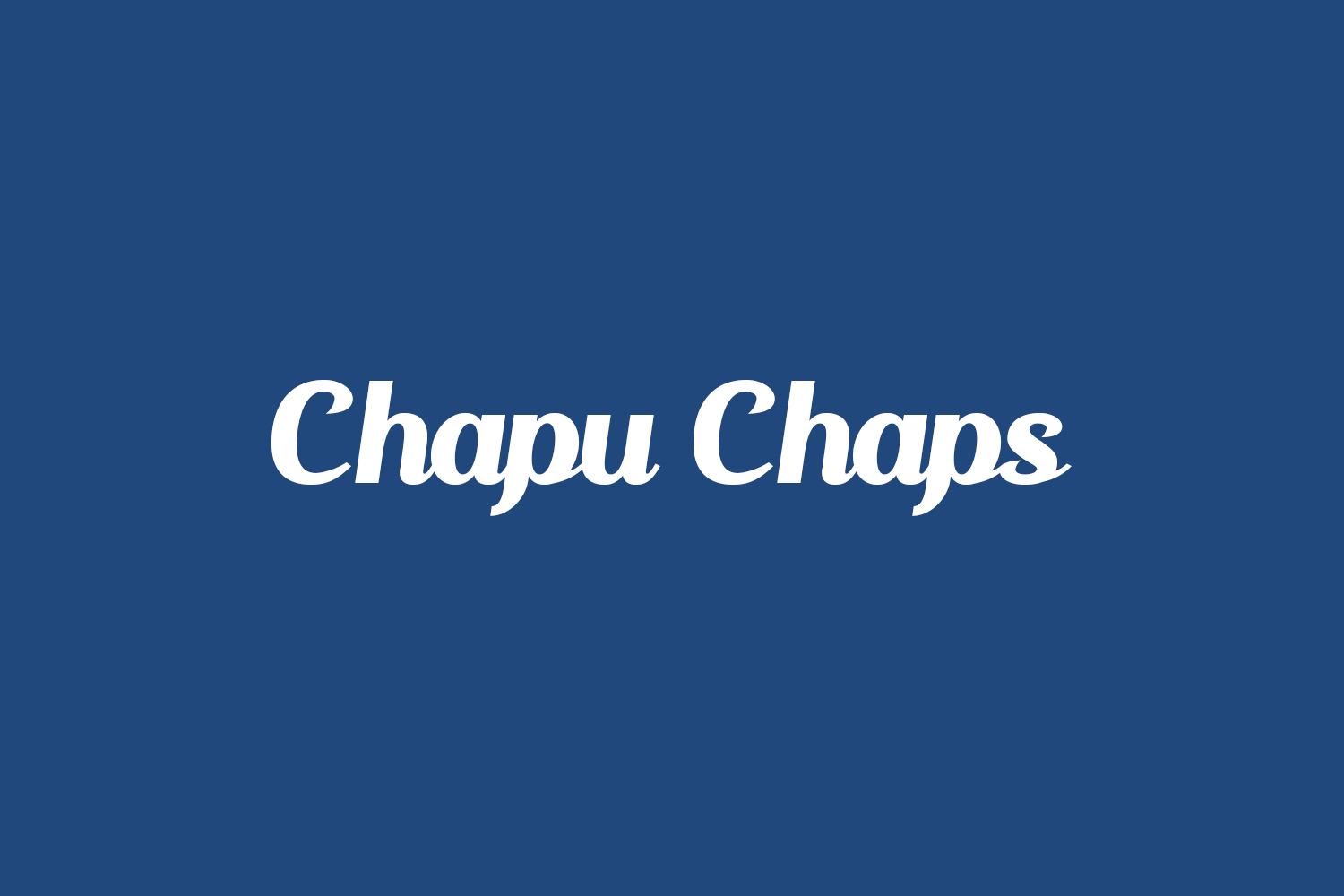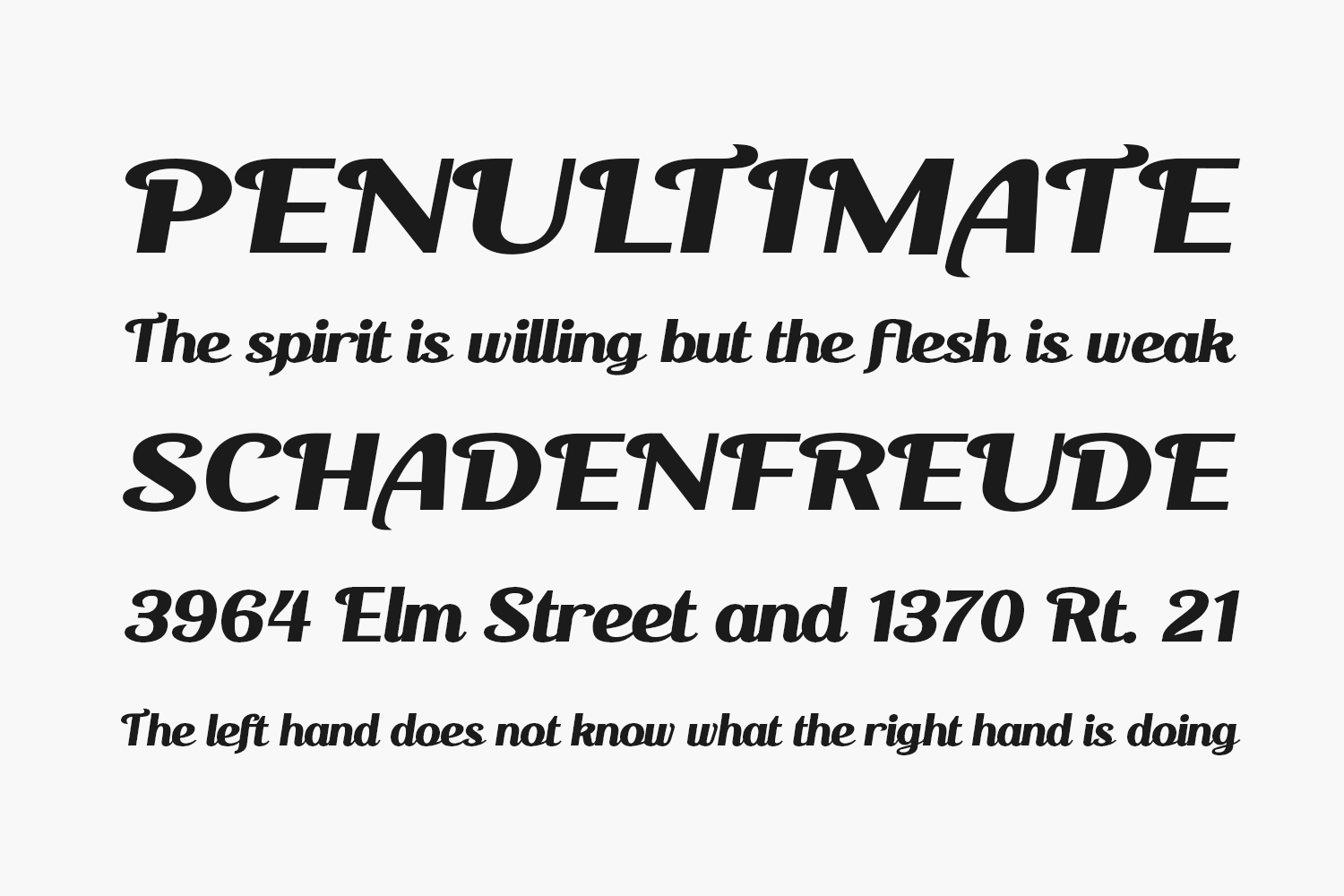
Introducing Chapu Chaps Free Font, the free font that will bring a touch of whimsy and playfulness to any display script. With its charming hand-drawn style, Chapu Chaps is perfect for adding a fun and lighthearted vibe to your designs. Whether you’re creating posters, invitations, or social media graphics, this font will help your message stand out with its unique personality and quirky character. So if you’re looking to inject some joy and creativity into your next project, give Chapu Chaps a try and watch your designs come to life.
Designed by Faqih Fawaji